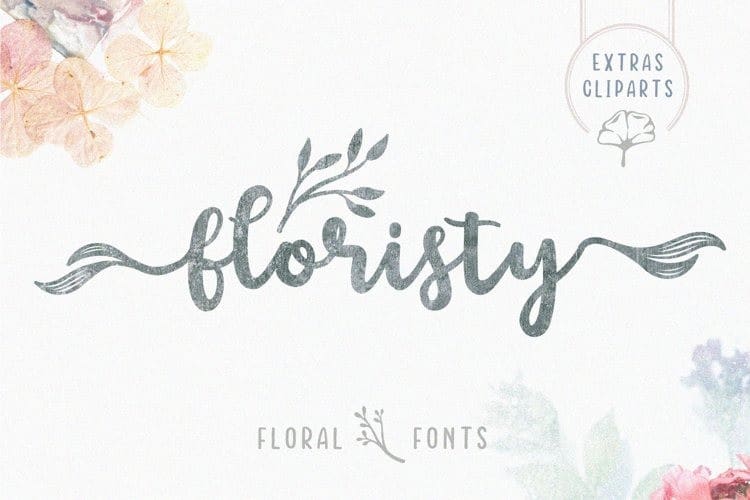
Floristy Font
Say hello to Floristy Script Font – A font that you were meant to find, and is now destined to be with you. Floristy is a beauty floral script and chic typeface inspired by the watercolor designs and flower. You can make a perfect combination ease. This beauty typeface suitable for merchandise, mug, t-shirt, cards, invitations, branding, youtube, quote etc.